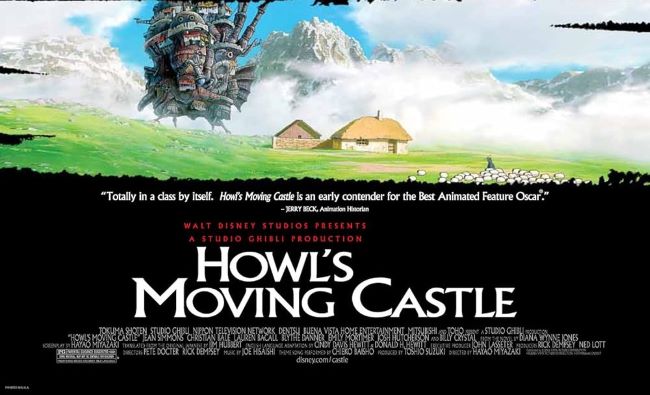
Howl’s Moving Castle Font
The Howl’s Moving Castle Font captures the same sense of whimsy and wonder that defines Studio Ghibli’s beloved masterpiece. Its elegant yet playful lettering style mirrors the film’s magical world—graceful, imaginative, and full of charm. The typography evokes the feeling of a storybook brought to life, blending fantasy and sophistication in equal measure. Fonts resembling this style often include whimsical serifs or hand-drawn designs with soft curves and subtle decorative touches. While the original lettering is unique to the movie, similar options like Cinzel Decorative, Garamond, or Ghibli-inspired fan fonts beautifully convey that same enchanting aesthetic.
About Howl’s Moving Castle
Released in 2004 by Studio Ghibli and directed by Hayao Miyazaki, *Howl’s Moving Castle* tells the story of Sophie, a young woman transformed by a witch’s curse, and Howl, a mysterious wizard who lives in a walking castle. Featuring stunning animation, deep emotion, and themes of love and war, the film remains one of Ghibli’s most magical and visually captivating creations.